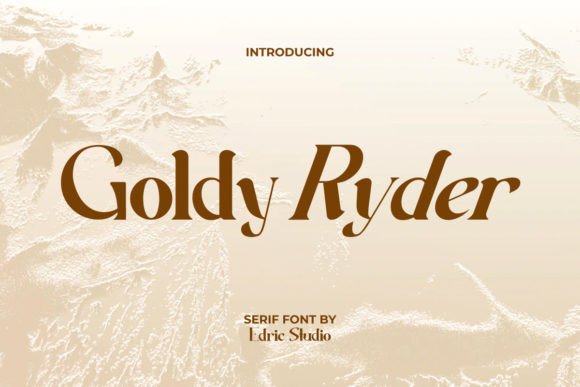
**Introducing Goldy Ryder: The Serif Font That Will Captivate Your Audience**
Step into a world of captivating typography with Goldy Ryder, the exquisite serif font crafted to elevate your designs to new heights. Created by the renowned EdricStudio, this font embodies sophistication, charm, and a touch of modern flair.
**Designed for Visual Grandeur**
Goldy Ryder's distinctive curves and refined details were meticulously designed to command attention on every screen. Its carefully balanced strokes exude an air of luxury and elegance, making it the perfect choice for projects that demand a touch of the extraordinary.
**Elevate Your Creations**
Whether you're crafting captivating headlines, stylish logos, or alluring social media posts, Goldy Ryder has the power to transform ordinary text into works of art. Its versatility shines through in a wide range of applications, from branding and packaging to web design and editorial projects.
**Capture Hearts with Every Character**
Every letterform in Goldy Ryder is a testament to the power of typography. Its elegant serifs add a touch of timeless charm, while its modern curves evoke a sense of contemporary sophistication. Together, they create a captivating visual experience that will leave a lasting impression on your readers.
**The Perfect Font for Modern Luxury**
If you seek a font that embodies the essence of elegance and modern luxury, look no further than Goldy Ryder. Its timeless appeal and undeniable charm will elevate your designs to new heights, creating a lasting impact that will captivate your audience.